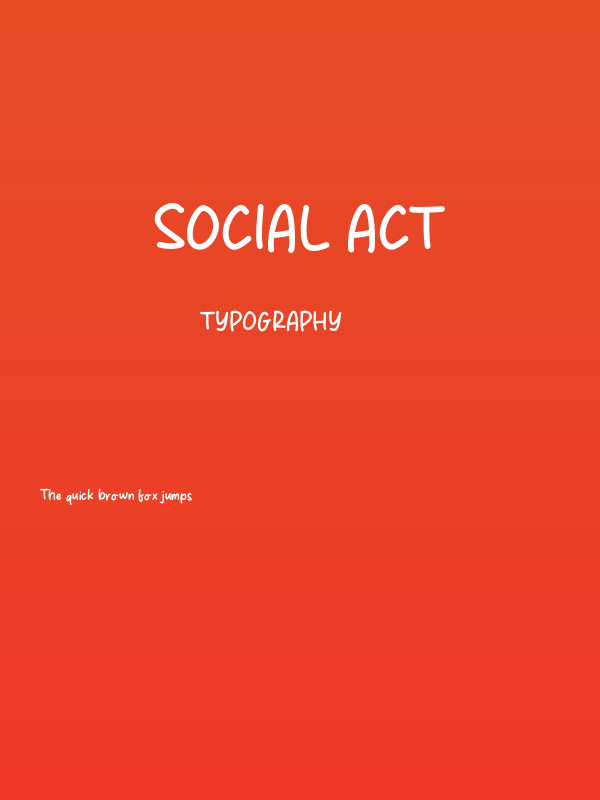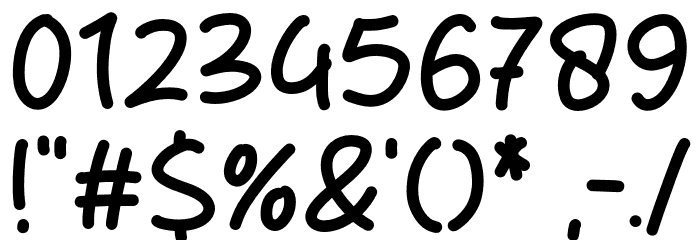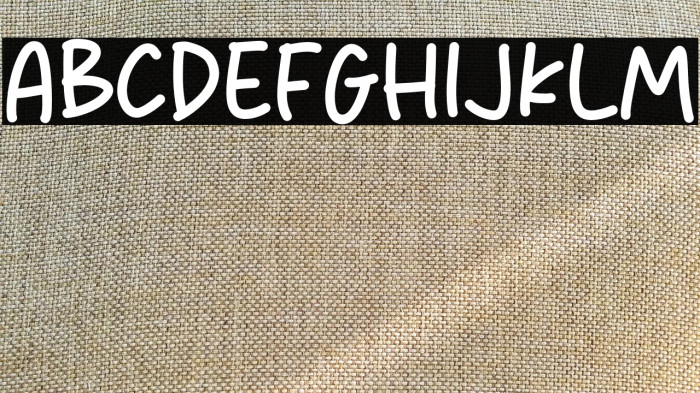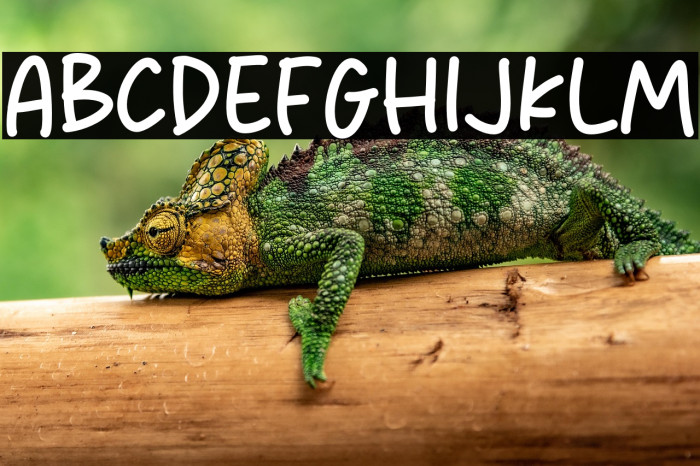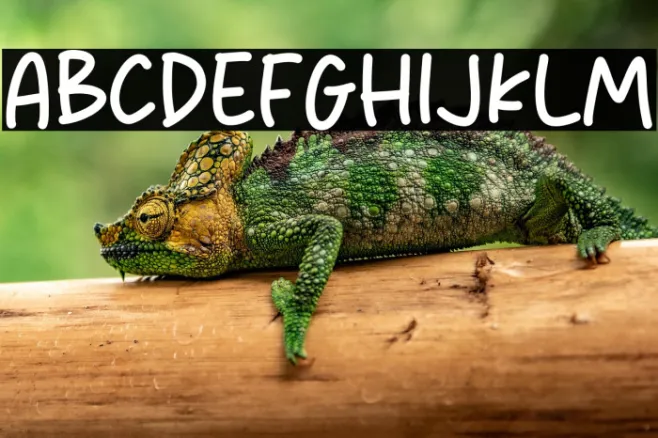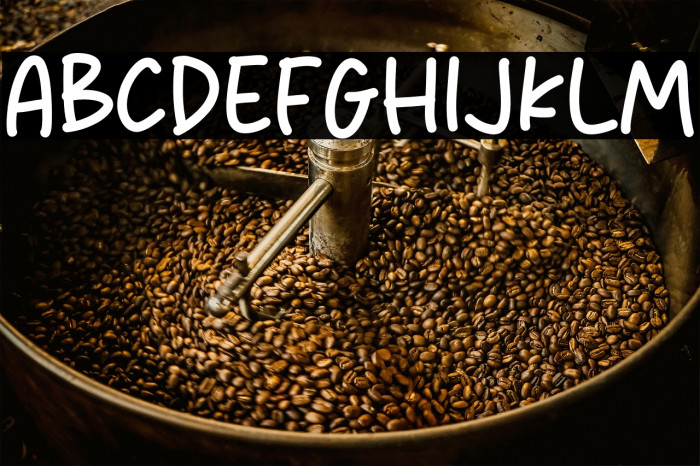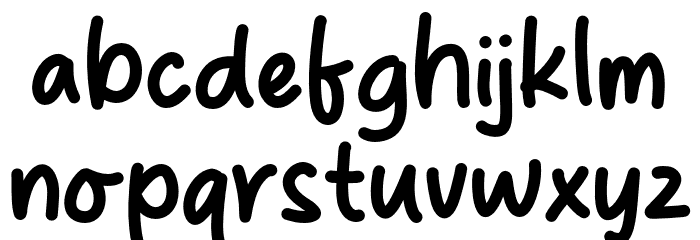
Social Act Font
| Gesamtstil | Casual |
| Anwendungsfall | Logos, Headlines, Informal text |
| Vorgeschlagene Projekte | Ideal for greeting cards, children's books, casual branding, and social media graphics. |